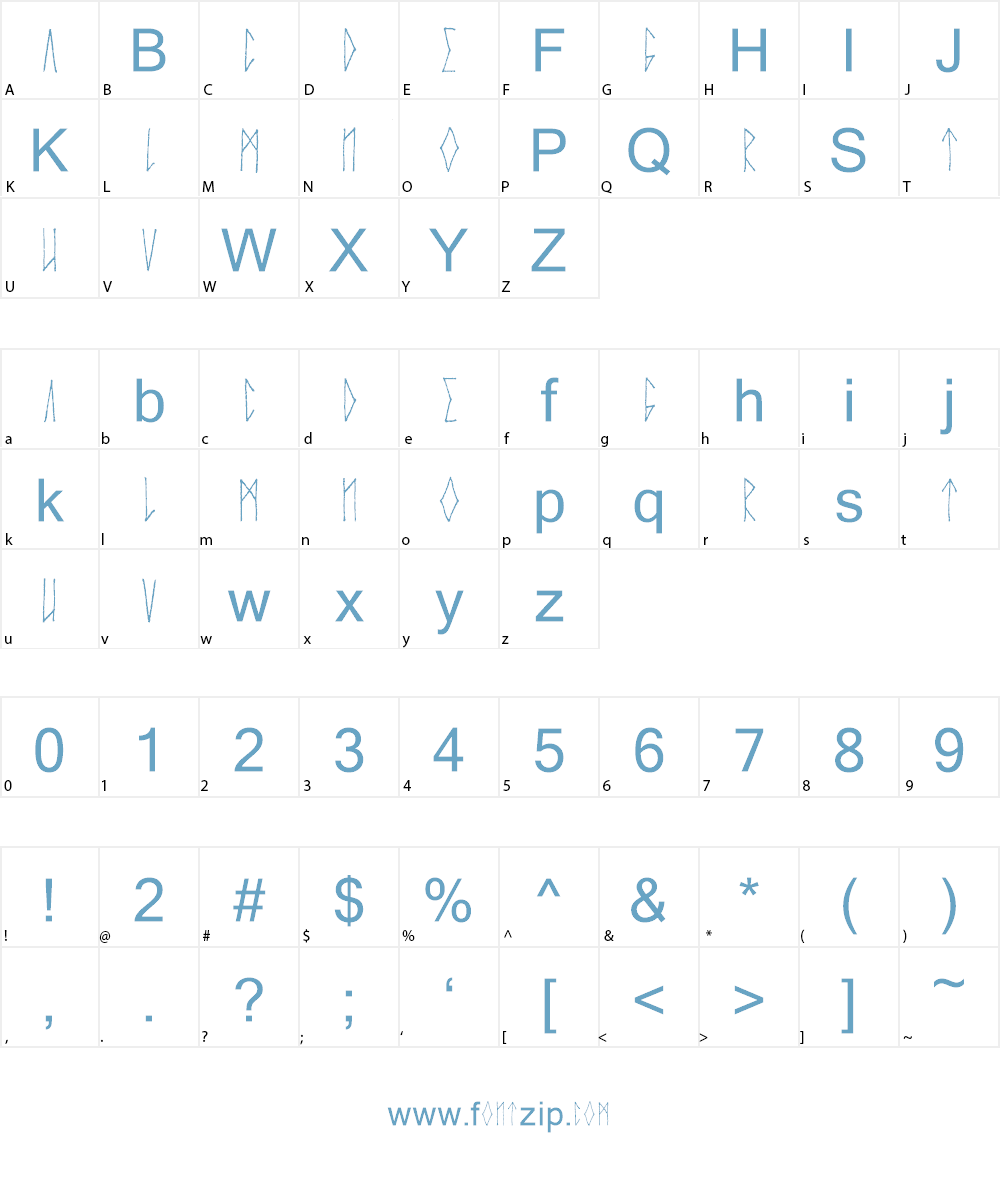
From the frigid wastes of Norway we bring you Cvlt Rvne Regular! Cvlt Rvne is a hand-drawn typeface designed to merge Scandinavian rune lettering with Southern California graffiti. Upper and lower cases feature different variations of the capital letters.